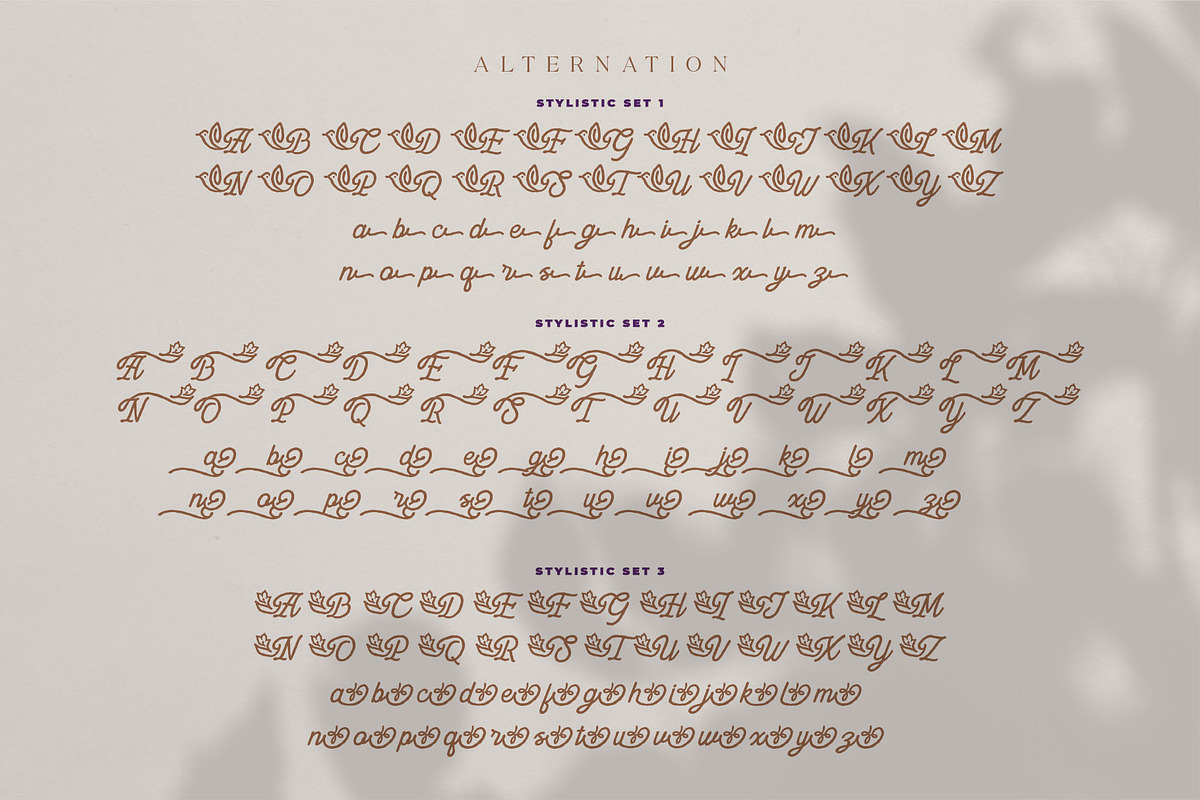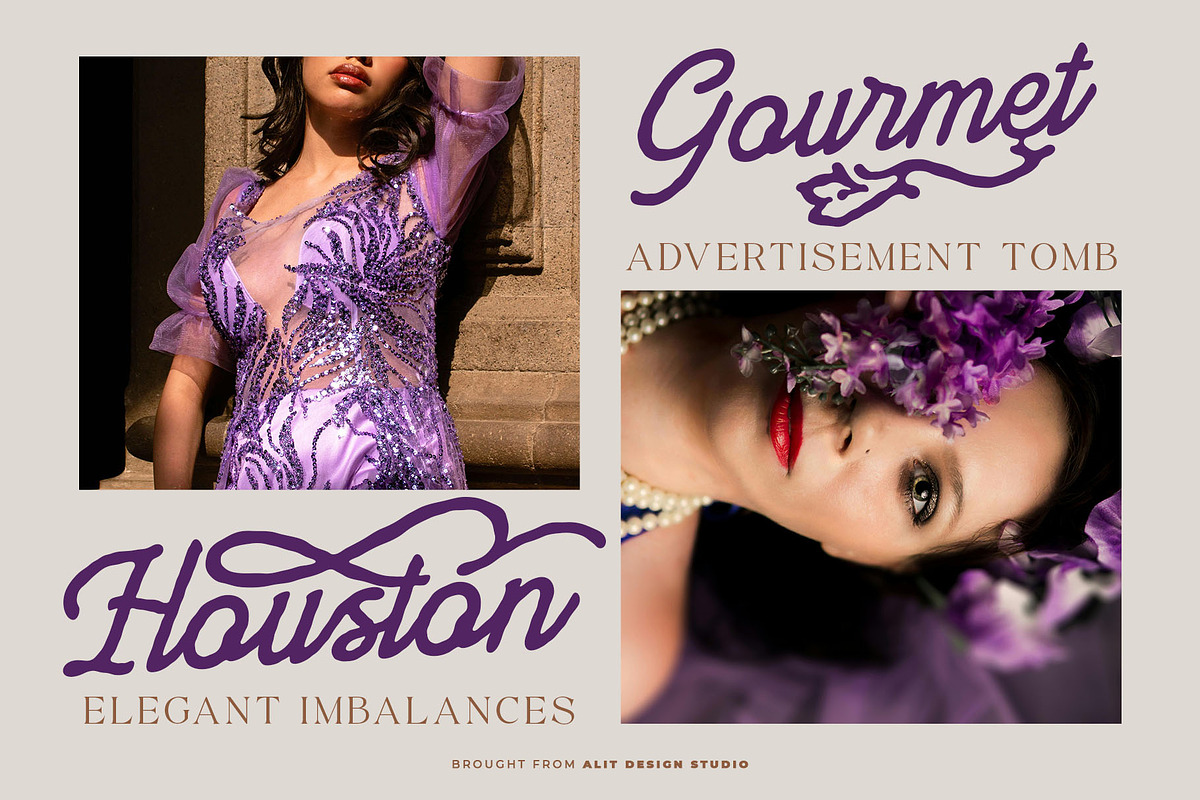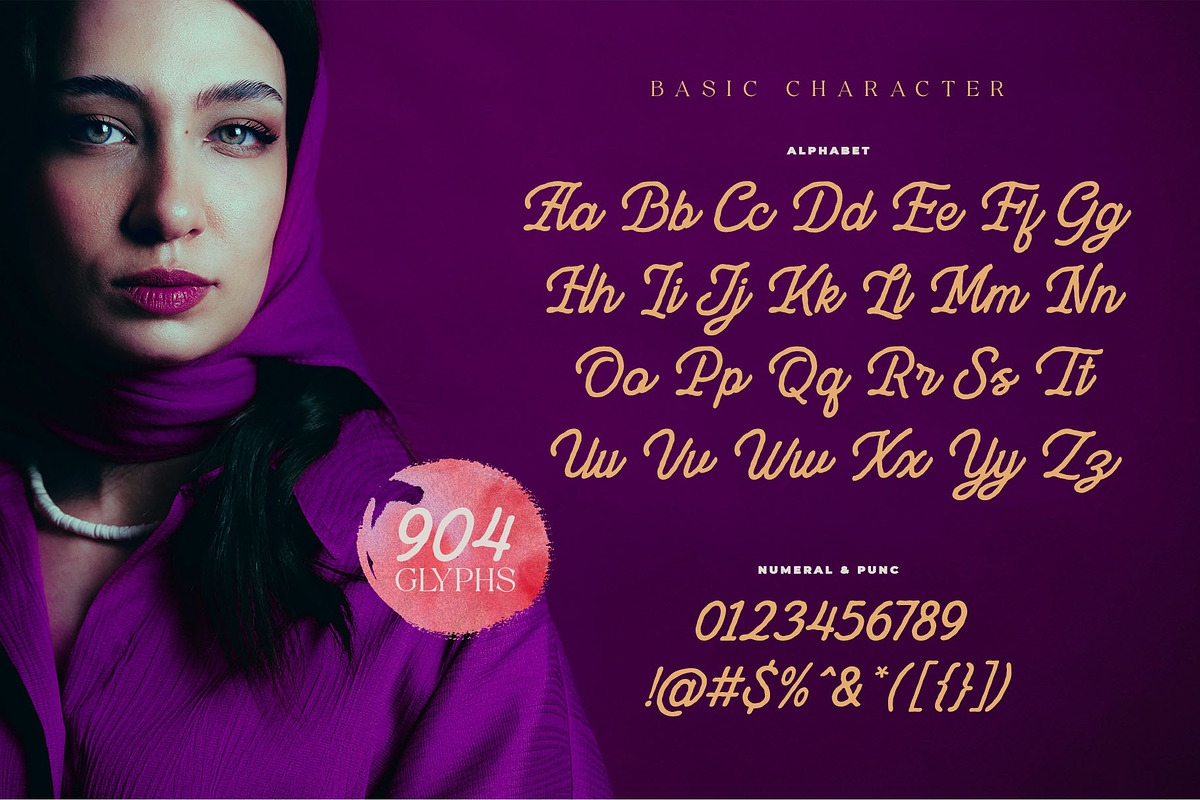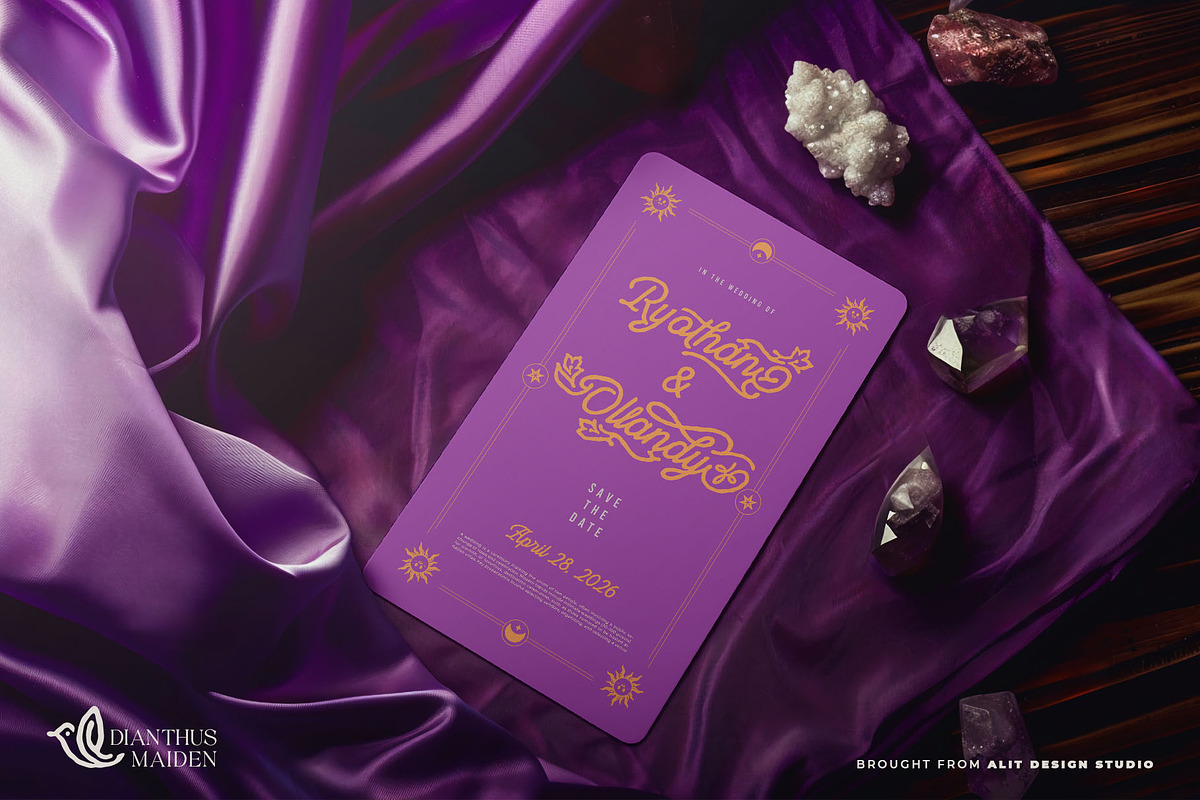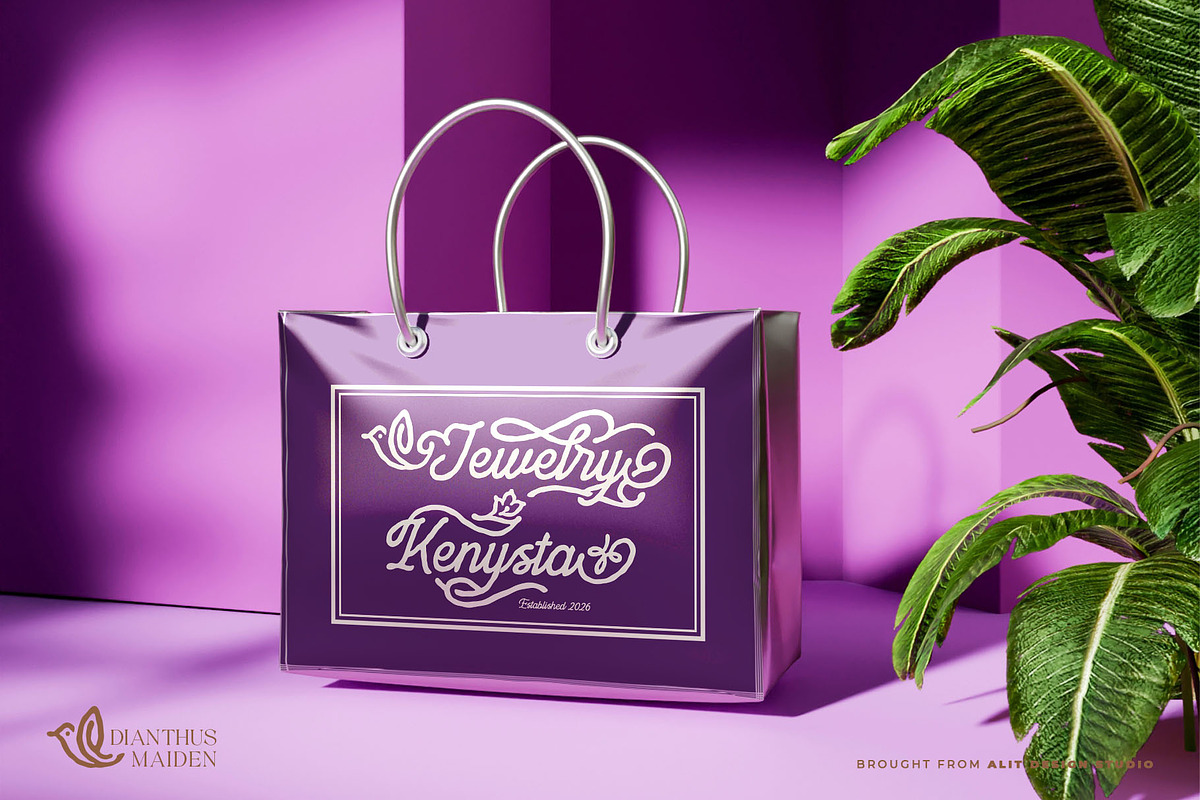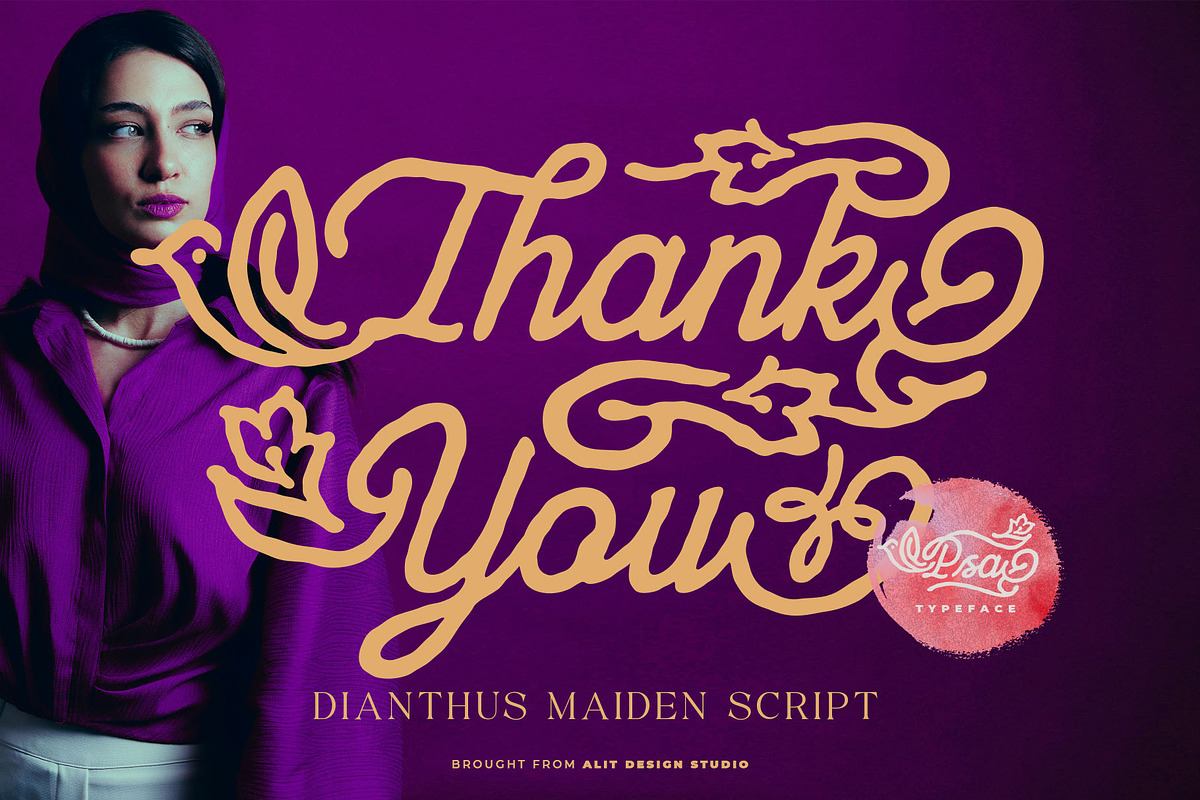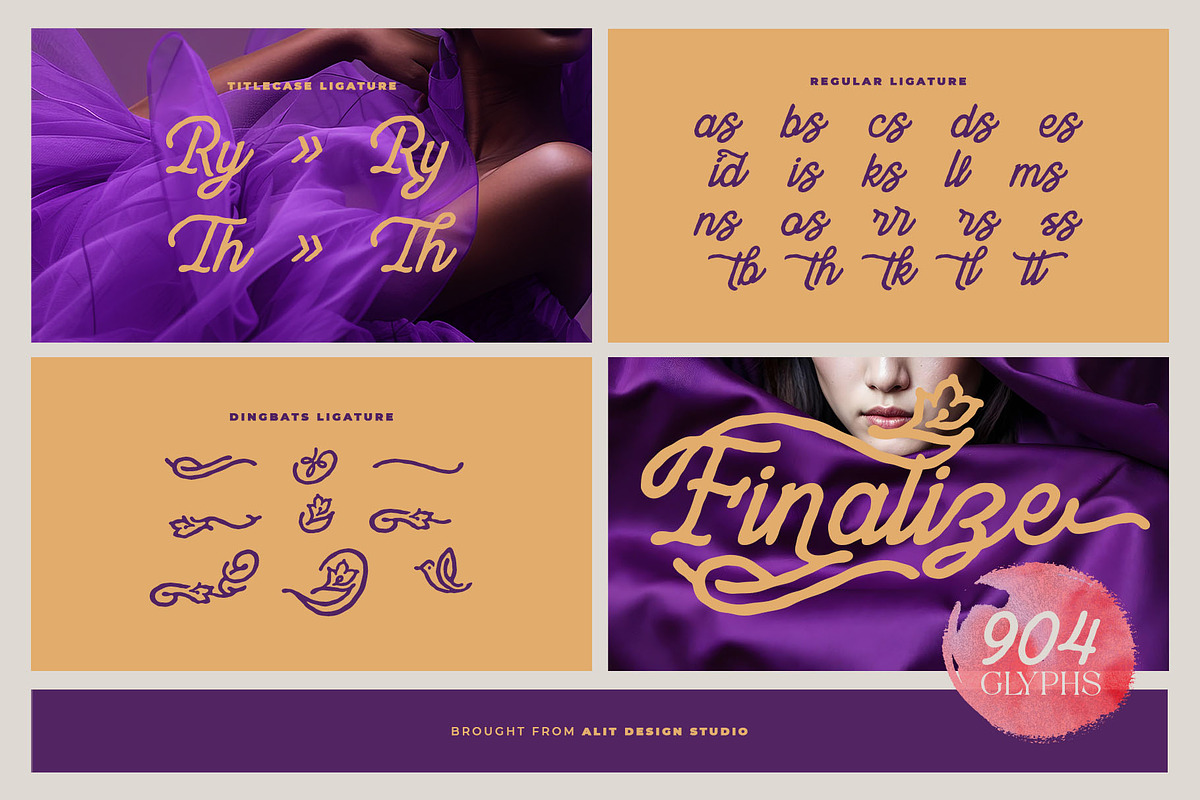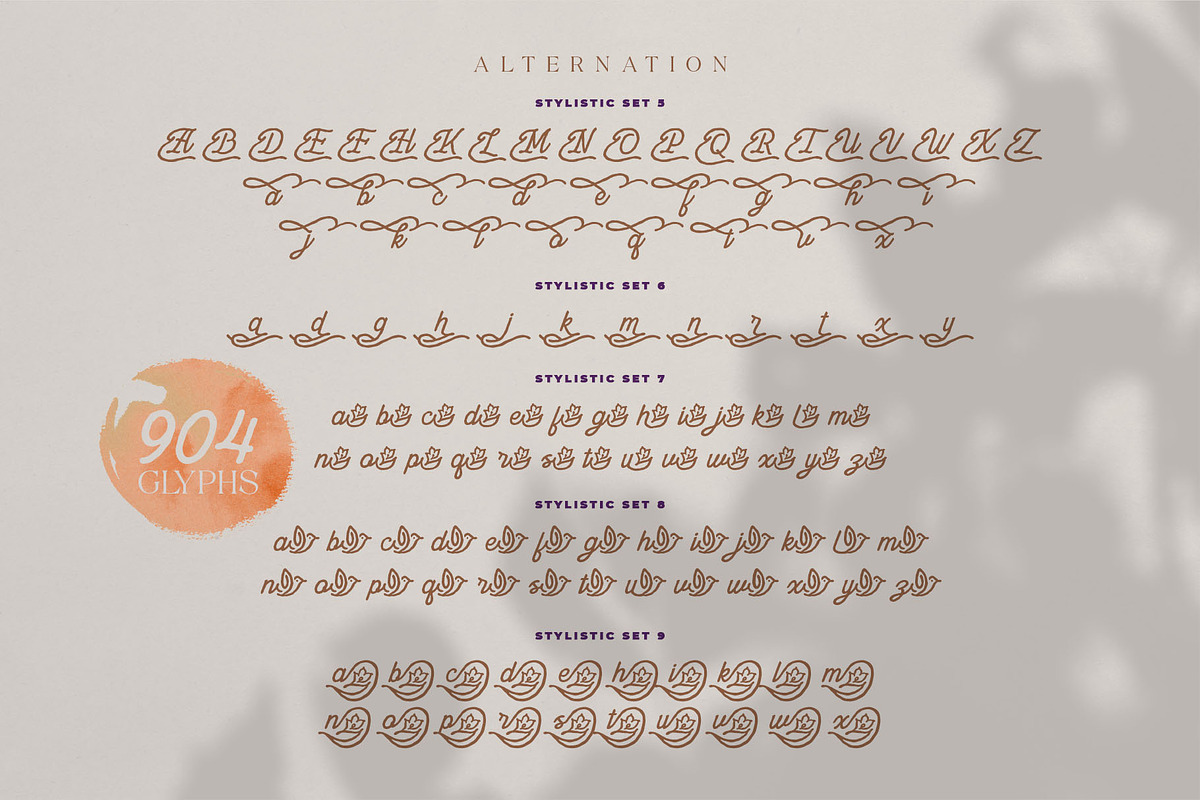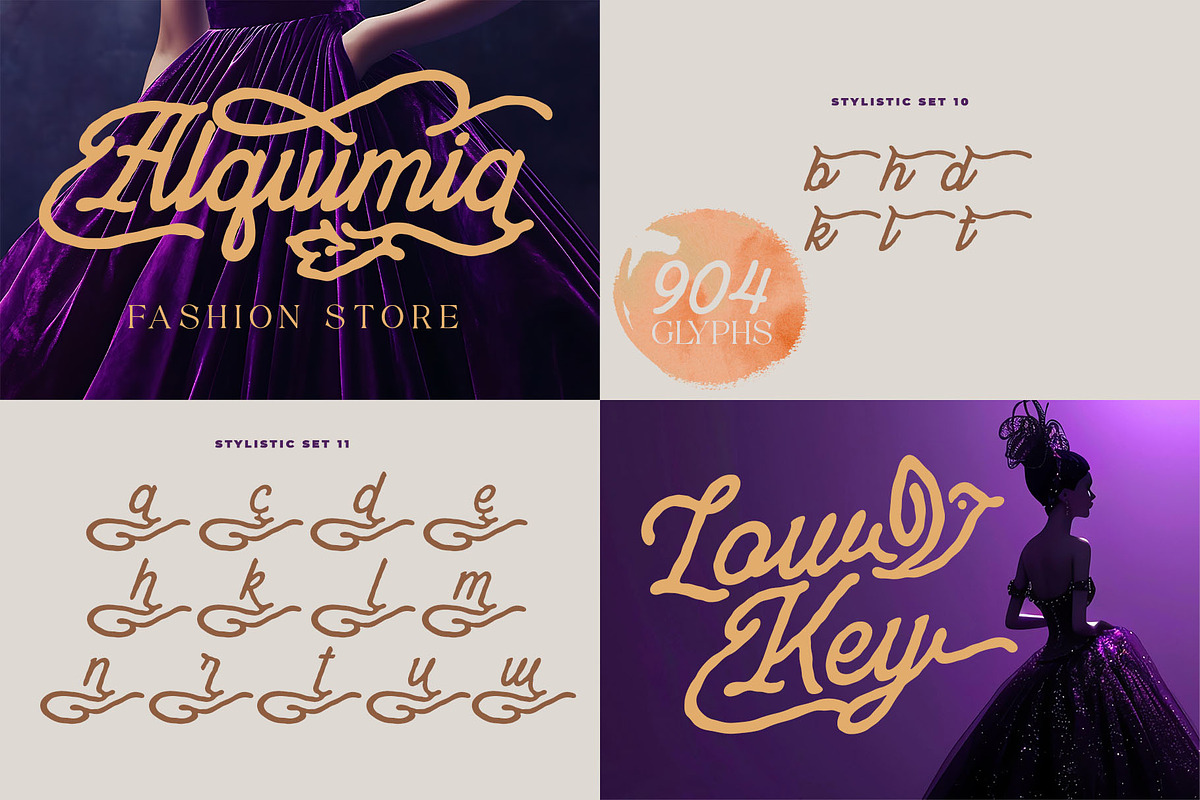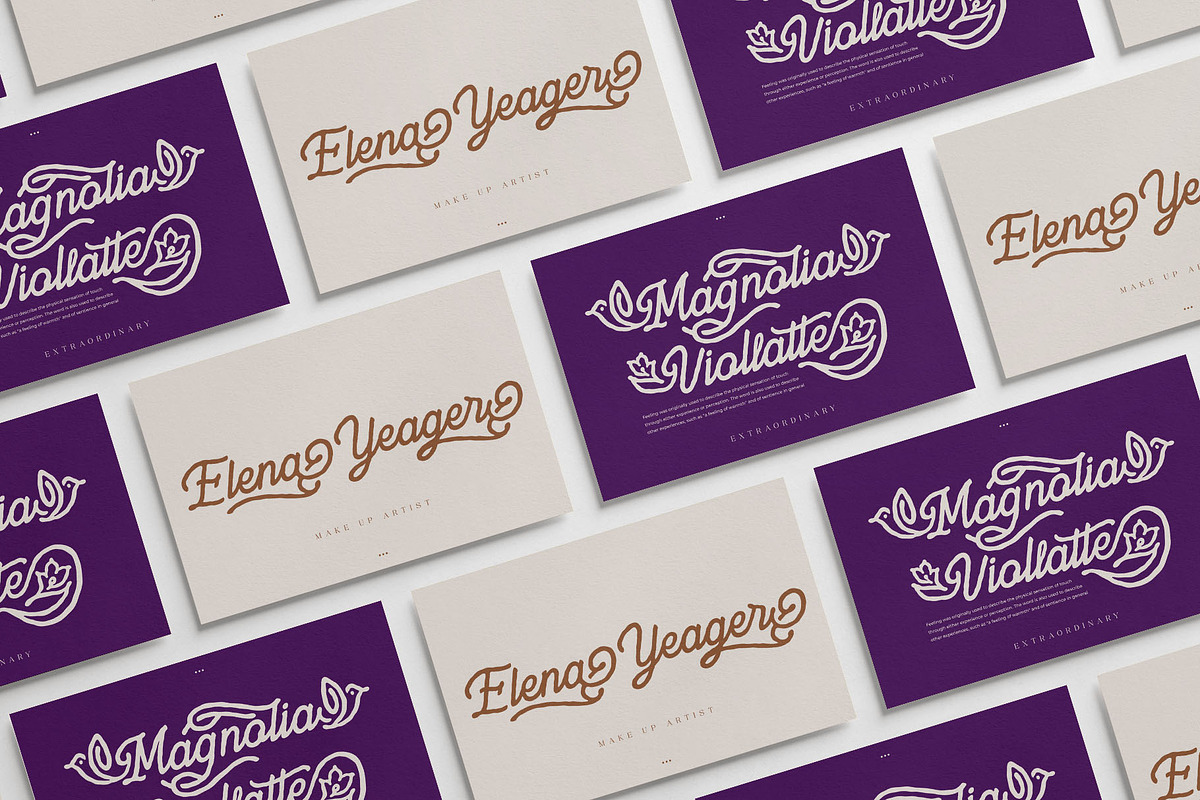
Dianthus Maiden Typeface
Introducing the Dianthus Maiden Typeface, a breathtakingly elegant and luxurious script font designed to bring a touch of graceful romance to your creative projects. Masterfully crafted to capture the essence of fluid, hand-drawn calligraphy, this typeface blends classic sophistication with modern botanical beauty.
What makes Dianthus Maiden truly extraordinary is its massive collection of 904 glyphs, giving you unparalleled creative freedom. It is meticulously packed with 16 Stylistic Sets featuring exquisite, intricate swashes adorned with delicate bird and leaf motifs. Whether you are designing a high-end fashion editorial, a boutique florist logo, luxurious wedding invitations, or striking cosmetic packaging, Dianthus Maiden provides the perfect decorative flair to make your typography feel custom-made and effortlessly beautiful.
904 Glyphs: A massive library of characters ensuring endless typographic variations and unique combinations.
16 Stylistic Sets: Beautifully crafted alternate characters featuring signature botanical and bird swashes to decorate your lettering.
Comprehensive Ligatures: Includes Standard, Titlecase, and unique Dingbat ligatures to create a seamless, natural handwriting flow.
Multilingual Support: Broad language support to suit your global design needs.
High-end branding, elegant logos, wedding stationery, fashion design, beauty and cosmetic products, florist shops, magazine layouts, packaging, and any project that requires a beautifully sophisticated aesthetic.